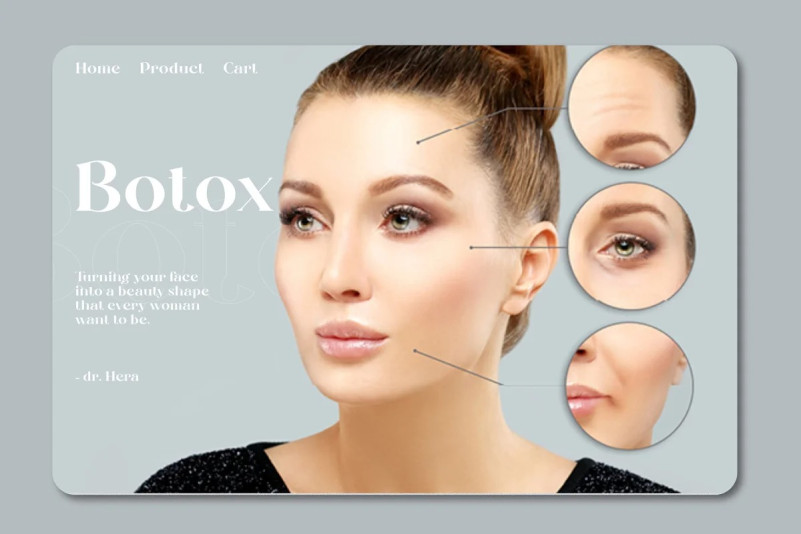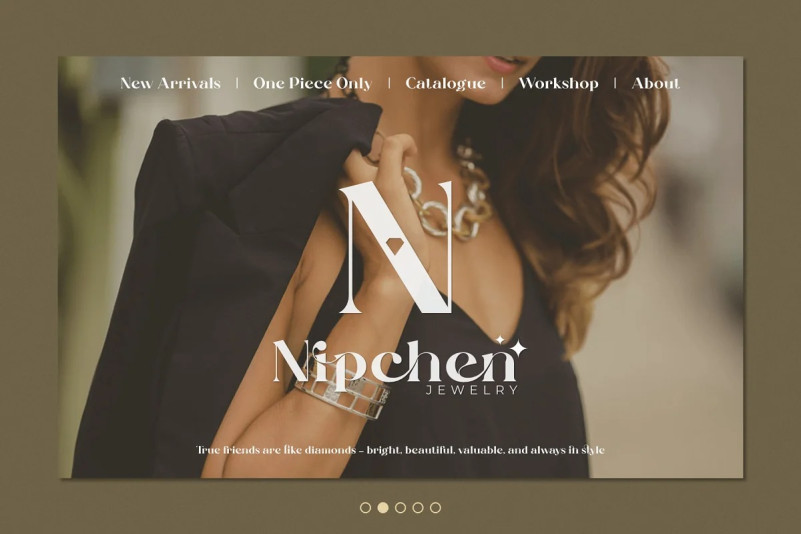
Milkipa Font
Milkipa Font – Stylish – Ligature Typeface inspired by the famous minimalist logo perfect for the purposes of designing templates, brochures, videos, advertising branding, logos and more.